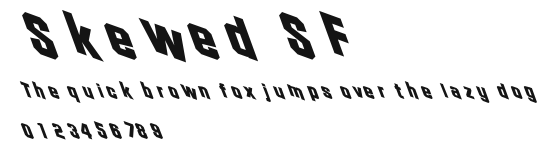
About Skewed SF.ttf
Skewed SF.ttf is a modern, elegant sans-serif font designed for ultimate readability and visual harmony. Perfect for branding, headlines, web design, and print materials.